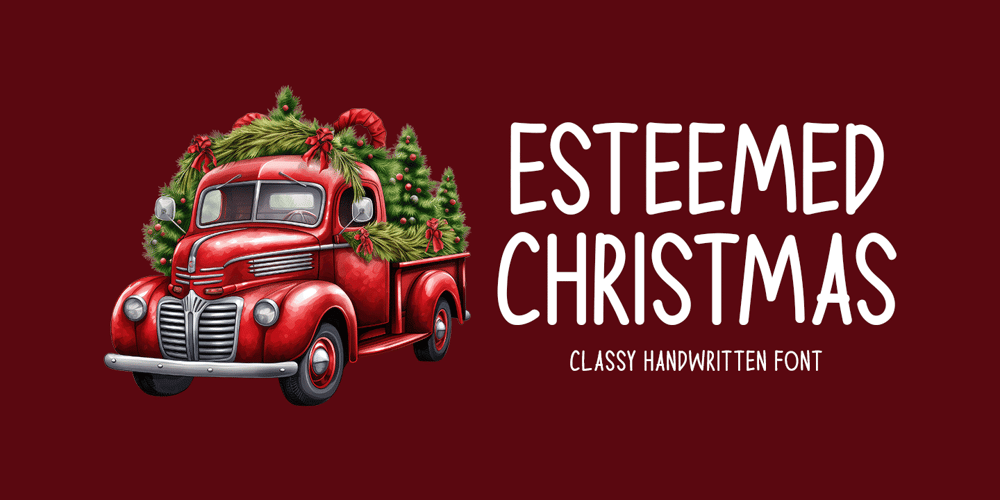
Esteemed Christmas Font Family was designed by Md Shohail Bhuian and published by Seemly Fonts. Esteemed Christmas contains 1 styles and family package options. Discover Esteemed Christmas, a fresh and enchanting handwritten font that enhances your designs with its stylish charm. Ideal for a wide range of uses, including stationery, logos, t-shirts, print materials, website headers, photo frames, flyers, music covers, and posters, it adds a sophisticated touch to any project.